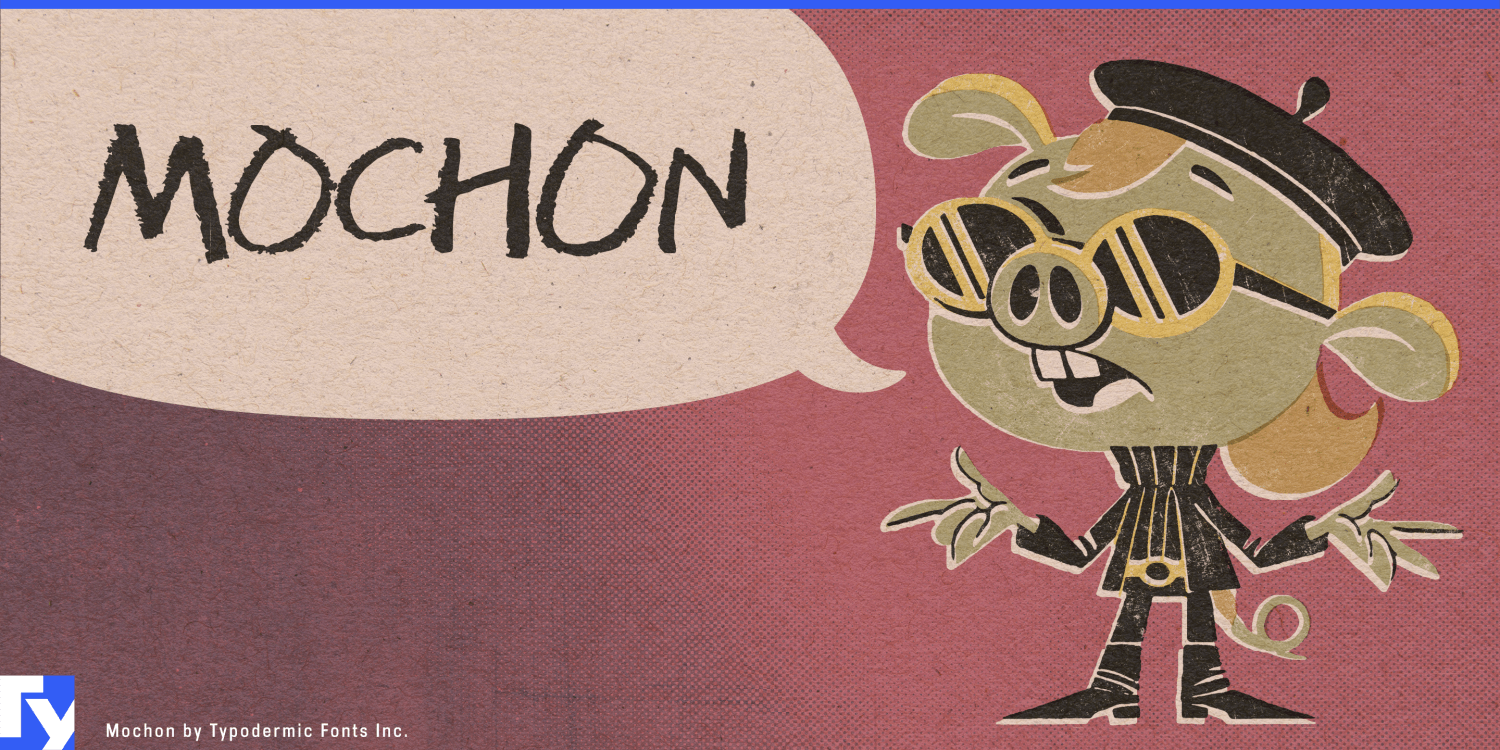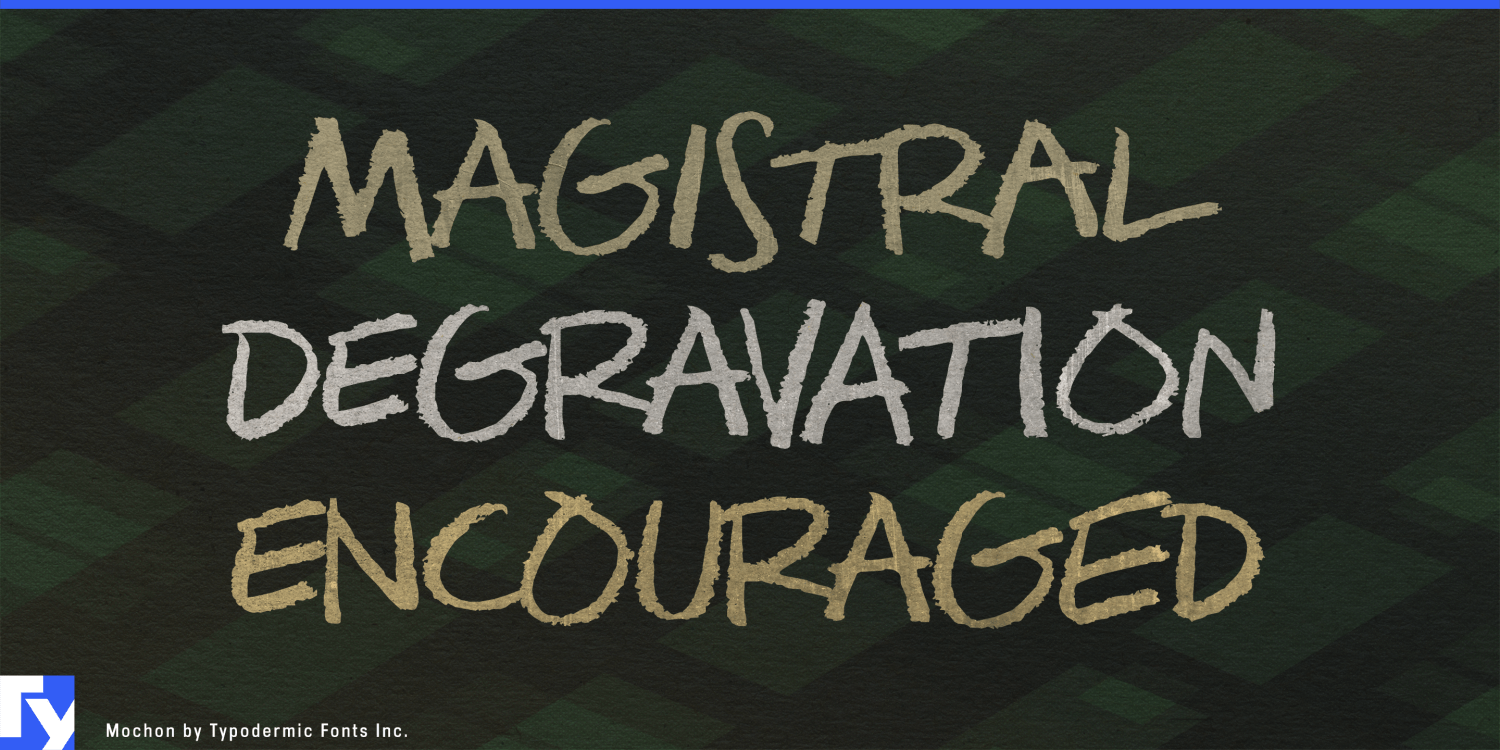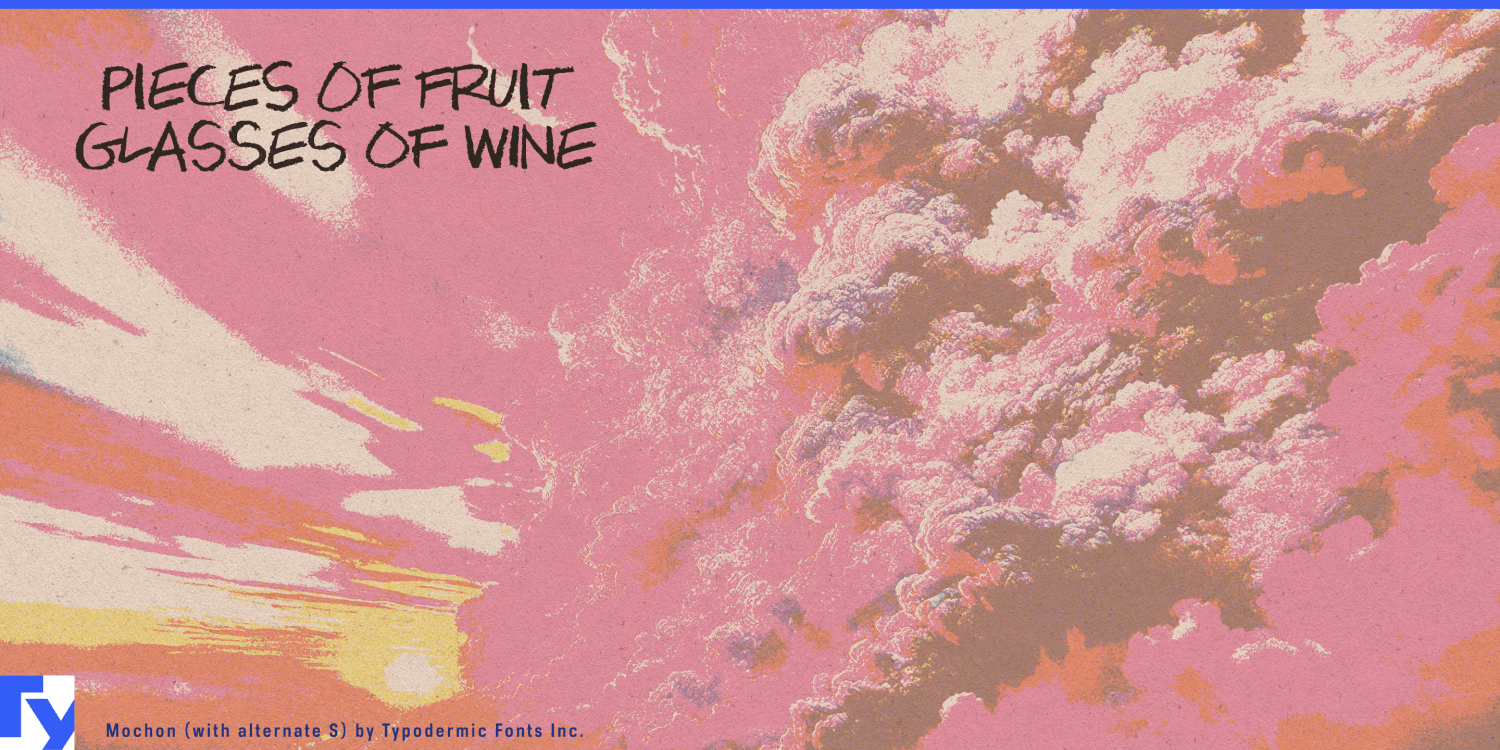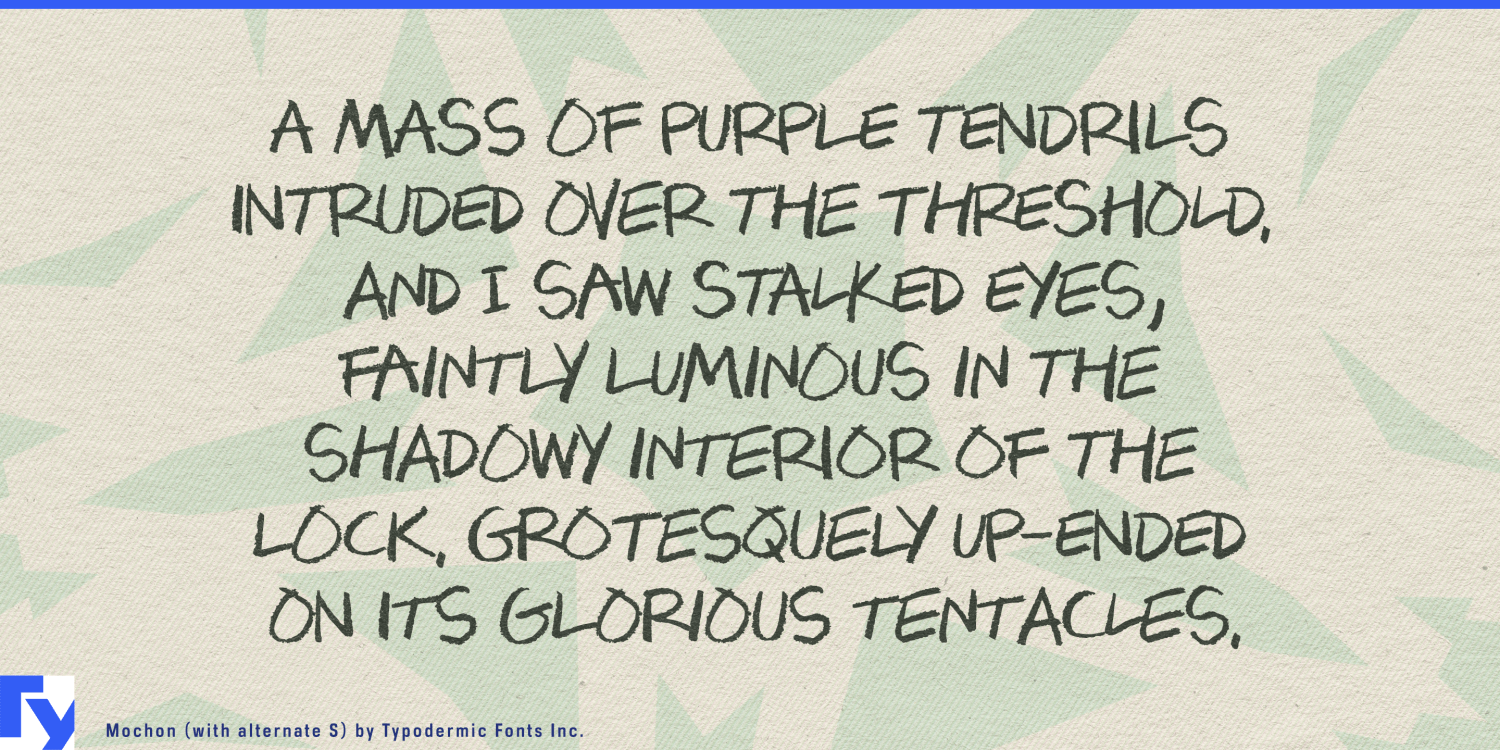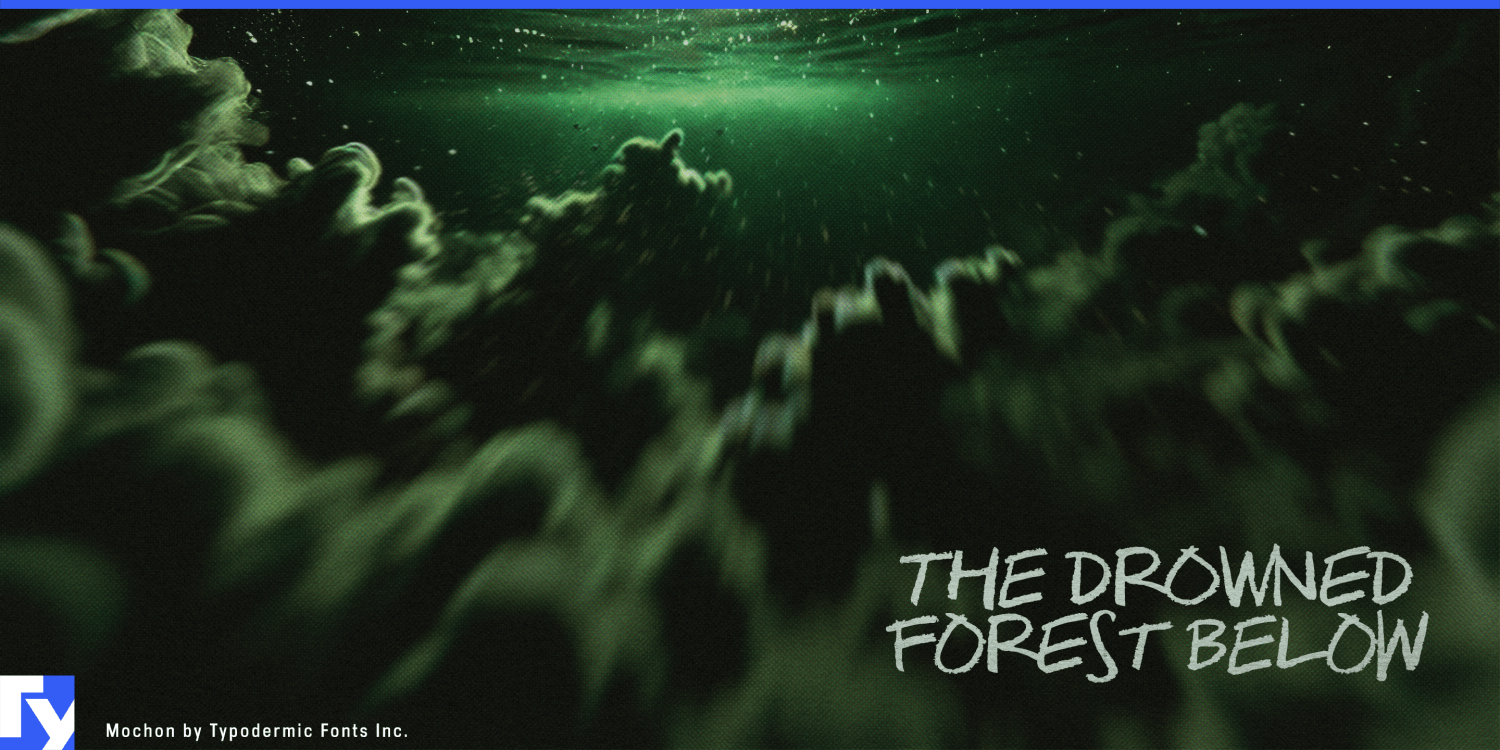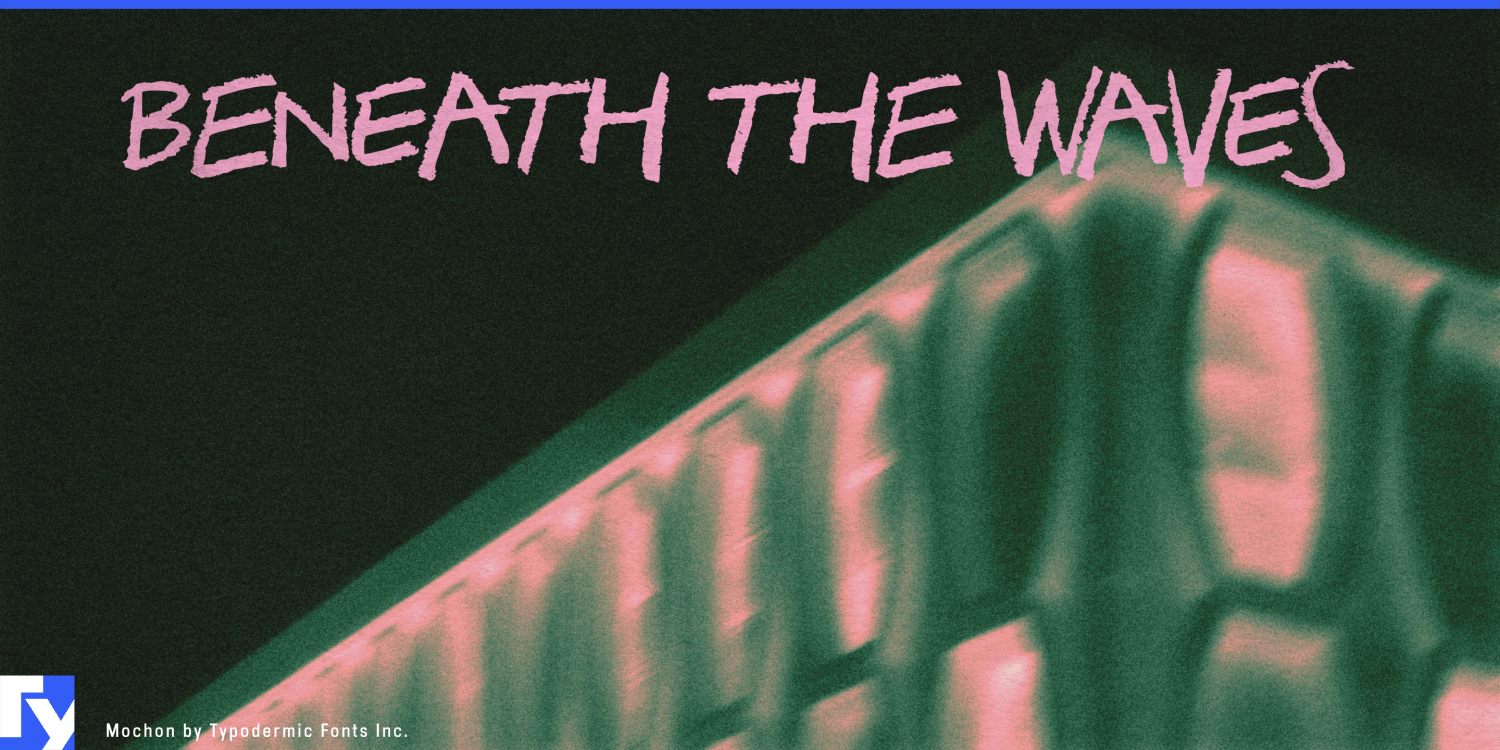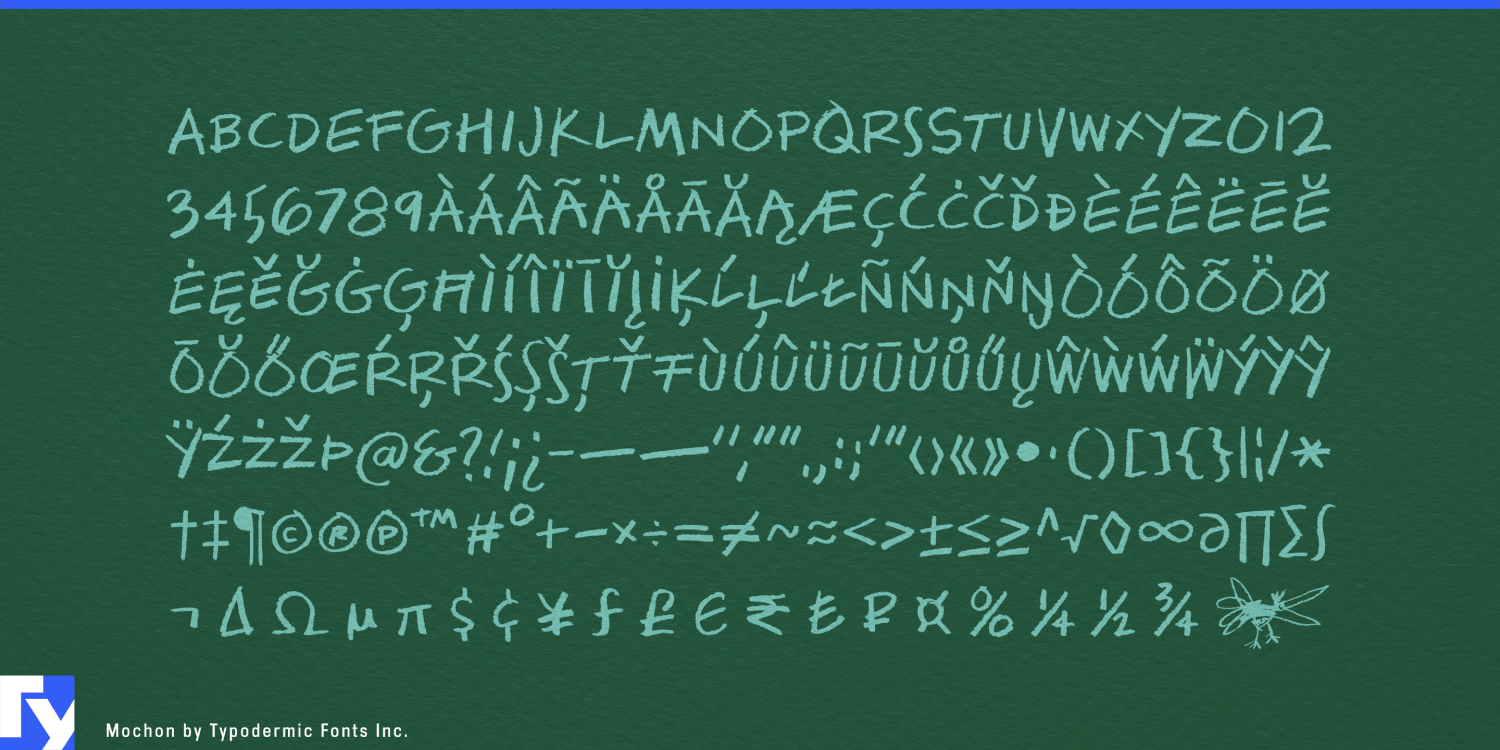
Mochon
Mochon captures the look of fast grease-pencil notes without drifting into cheerful marker lettering or classroom handwriting. Its all-caps forms are loose and dark, but an underlying geometric rhythm keeps them coherent enough for professional presentation work. Three variations of each letter and numeral shuffle automatically, helping repeated characters retain the irregularity of real hand lettering.
That makes Mochon especially useful in architecture, where increasingly polished digital visualization can make even an early concept look finished. Competition boards, development proposals, renovation studies, masterplans, massing diagrams, material presentations, and public-consultation graphics often need a second visual register for alternatives, comments, diagram labels, and provisional ideas. Mochon can supply that handwritten layer beside a clean architectural sans without requiring every annotation to be drawn manually.
Photorealistic rendering, BIM, digital twins, and AI-assisted visualization make that distinction even more useful. A convincing rendering may still need to communicate NEW ENTRANCE, OPTION B, RETAIN EXISTING WALL, or another decision under consideration. Mochon introduces visible human deliberation into imagery whose finish might otherwise suggest that everything has already been resolved.
Industrial and product designers face the same problem. Automotive concepts, furniture systems, workplace products, lighting, appliances, transportation equipment, and medical-device proposals often combine immaculate renderings with material callouts, mechanism notes, alternatives, and revisions. Mochon separates those working observations from CAD labels and formal specification typography.
Engineering consultancies, innovation teams, foresight groups, and corporate R&D departments can use the same contrast in opportunity maps, prototype presentations, scenario boards, workshops, and internal concept decks. Architecture museums, industrial-design exhibitions, urban-planning shows, and material exhibitions can extend it into wall annotations, diagram labels, section markers, and process-oriented display graphics.
Mochon works best wherever polished digital work needs a visible layer of thinking. It gives architects, industrial designers, planners, exhibition designers, and R&D teams a grease-pencil voice for notes, alternatives, material callouts, and provisional ideas while leaving formal information to a more disciplined companion face.